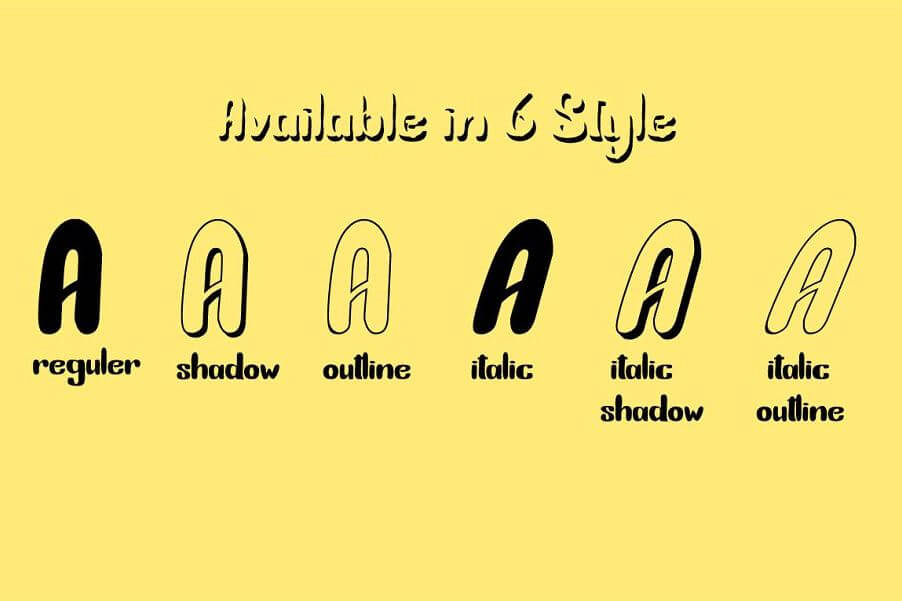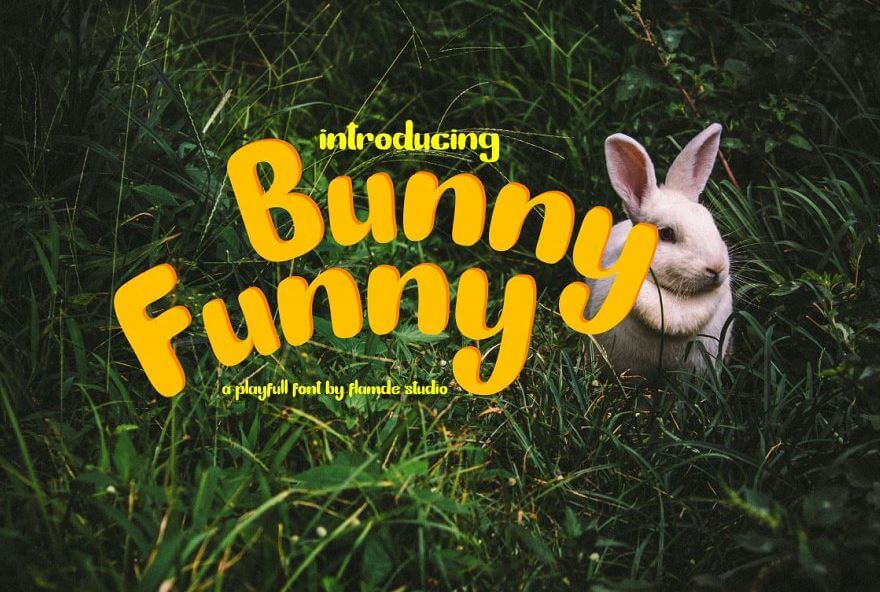
Bunny Funny Playful Font
Introducing Bunny Funny Playful Font created via flame studio. Bunny humorous, an amusing mixed-case font that gives the feeling of ‚Äòjotting‚Äô a few elements down actual speedy! These are hand-drawn fonts that simply supply off an actual private contact in your initiatives. It’s miles ideal used for numerous features as canter which include editorial layout, branding, artwork quote, e-book/cowl perceive.
The Playful font has both Uppercase and Lowercase letters, Numbers and Numerals, Symbols, and many joyful alternative characters also. It has TrueType features and has the ability to support many languages. It is free for personal use only and ready to download on our website.